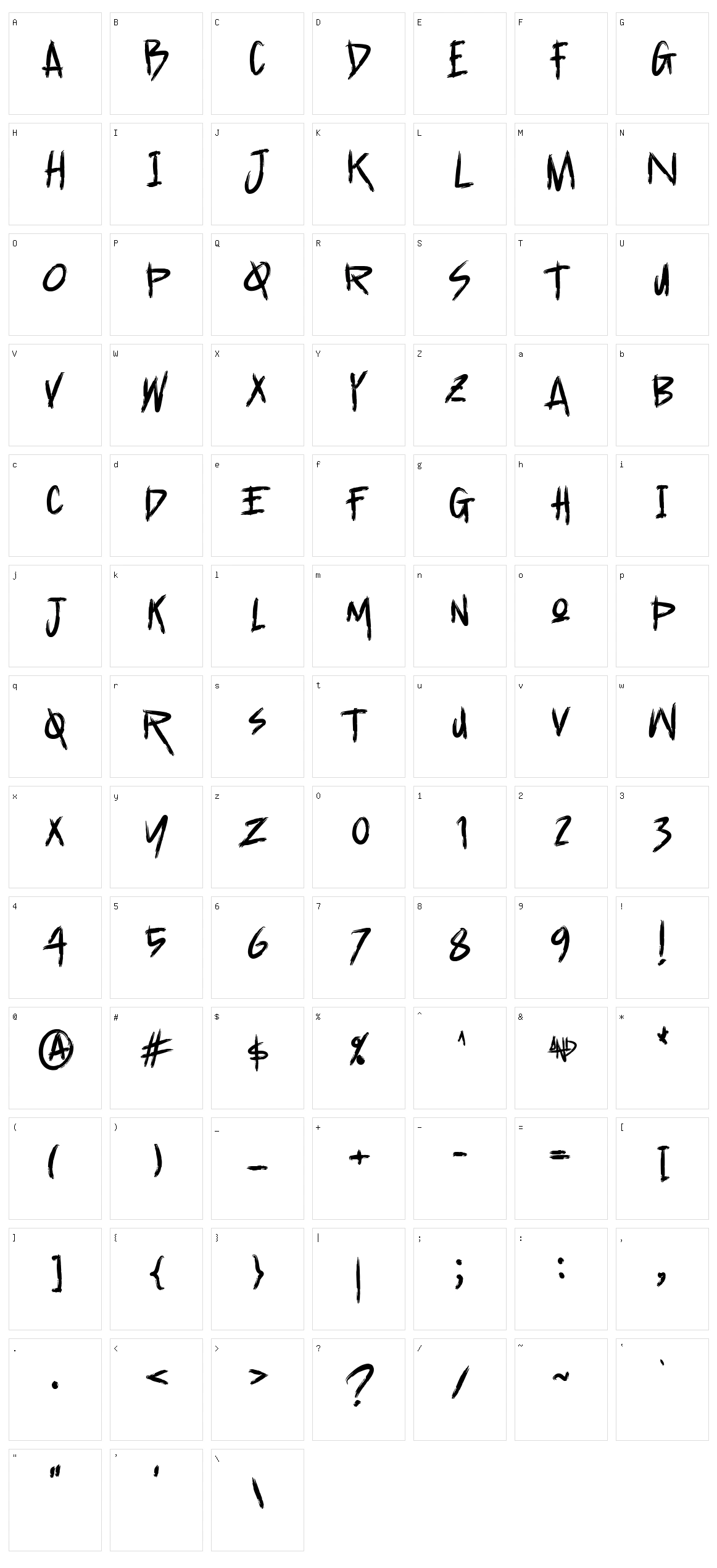
The free font Antipathic is carefully designed by 'Cornertype Studio, showcasing a thoughtful balance of creativity and usability and falls under the Horror font style. When you download the ZIP file, it contains only 245.48 KB of font files, making it lightweight and quick to download. Please review the license details below to understand permitted usage and distribution rights. If license information is not available, we recommend using this font for personal projects only or contacting the author directly for commercial usage permissions.